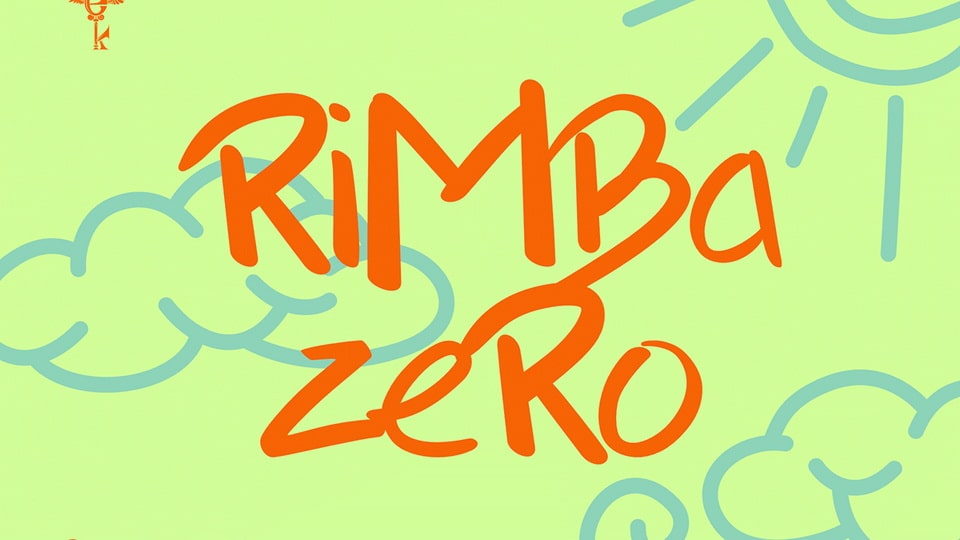
Download Rimba Zero font, a playful graffiti-style typeface that captures the spontaneous energy of hand-drawn letters with its quick, irregular strokes.
Designer: Key Type